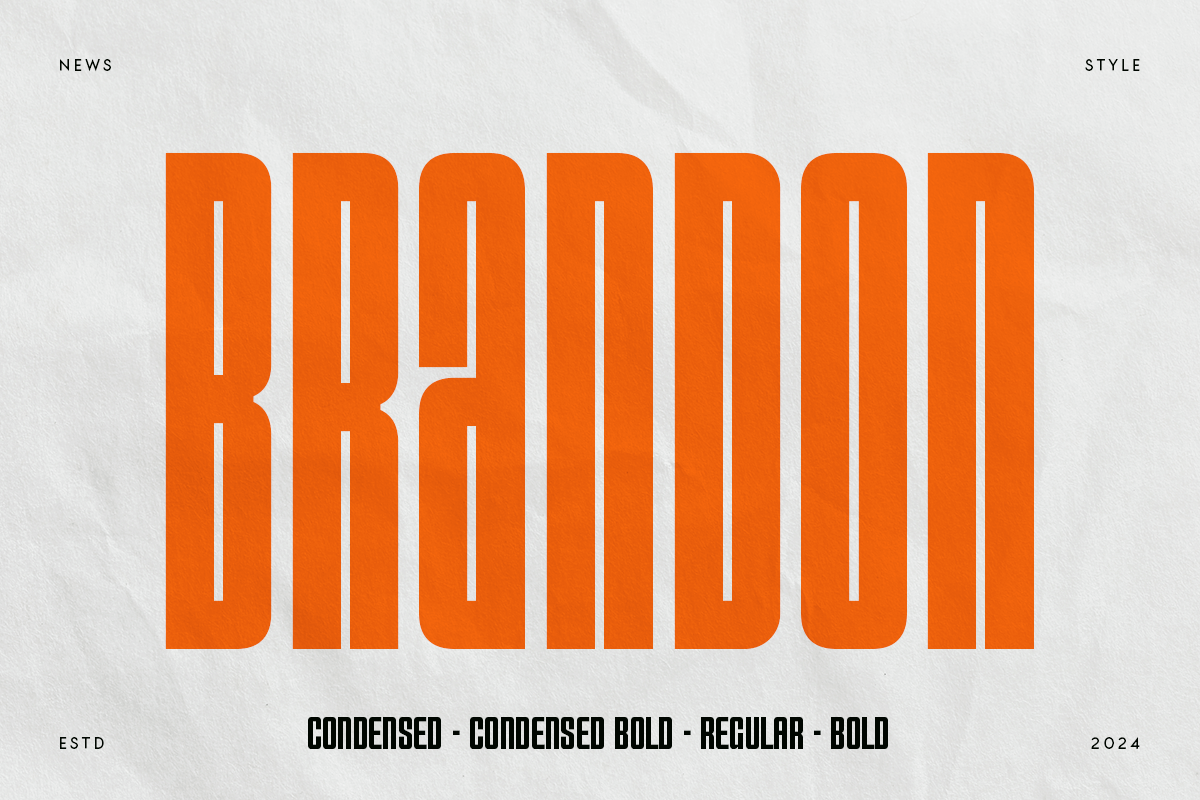
Brandon
-Neo Brutalism Font
Brandon is a Neo Brutalism Font is with a minimalist, unique, and iconic sans serif, font that you can combine to get any variations and unique shapes easily just in seconds with choose alternates of them and 2 weight for Regular and Bold. It is a sans serif font with minimalist style that perfect for branding projects, logo, poster designs, social media posts, advertisements, product packaging, product designs, label, photography, watermark, invitation, stationery, and any projects, it makes with a high level of legibility.